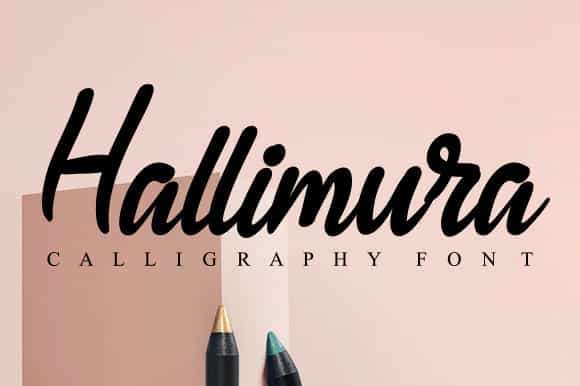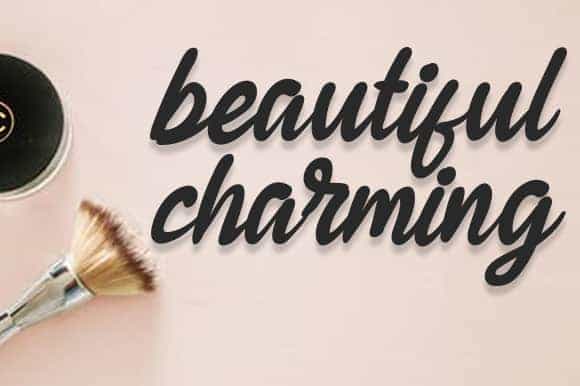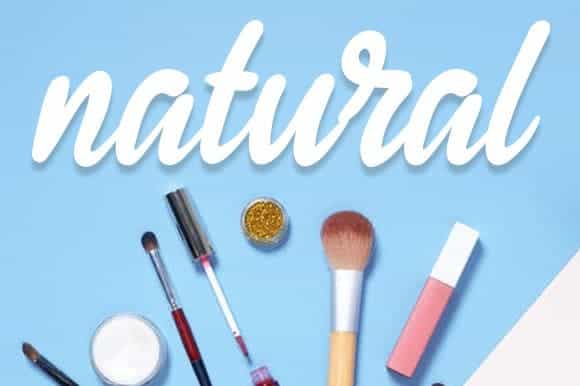
Hallimura Font has letters ideal for wall art, wedding invitation, social media logo, ads, packaging design, labels, photography watermark, invitation, stationery, and more.